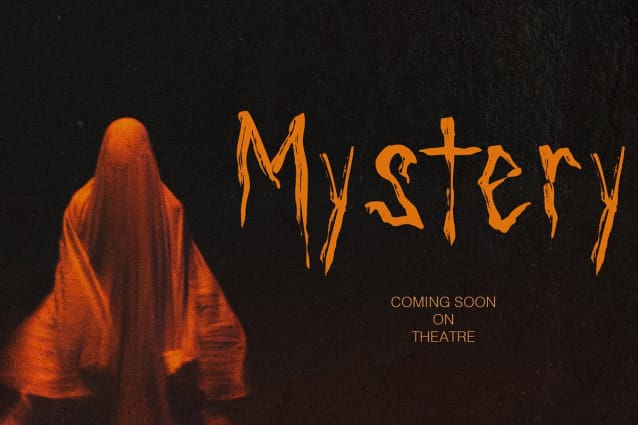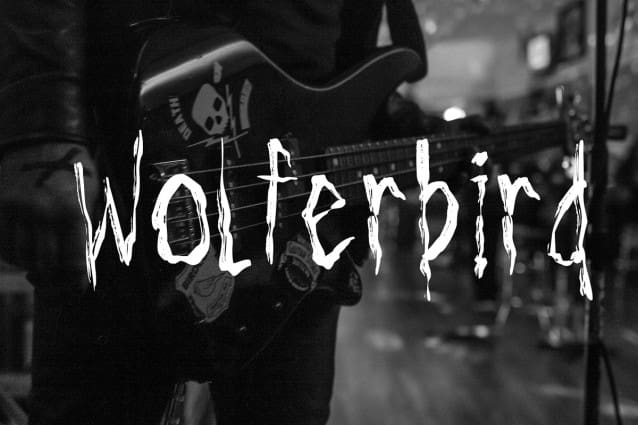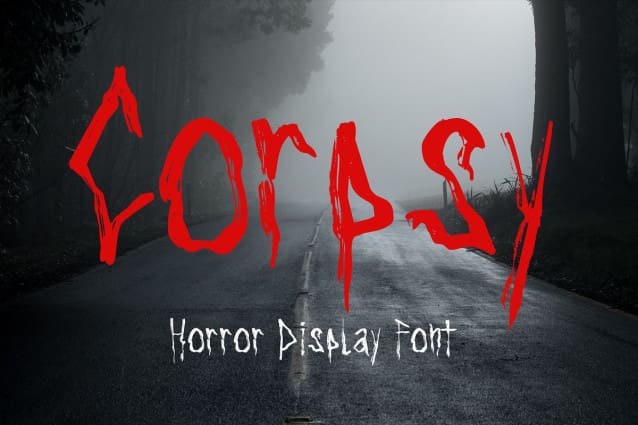
Corpsy Horror Font
Corpsy Horror Font – the perfect font for all things horror! With its unique and droplet touch, this font screams Halloween, nightmare, horror, and many more. Its trash style adds a gritty edge that is sure to make your designs stand out. Corpsy Horror is great for posters, t-shirts, art crafts, unique headlines, logotypes, and many more. Don’t settle for ordinary fonts – choose Corpsy to give your designs a spooky and unforgettable twist!